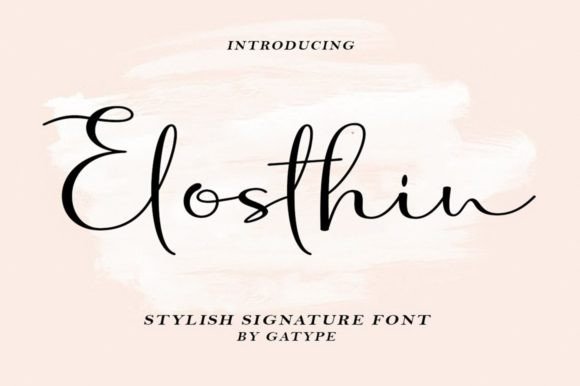
Step into the realm of enchantment with Elosthin, a script typeface that exudes elegance and charm. Its meticulous design ensures legibility and authenticity, making it the perfect choice for any design project that demands a personalized touch.
Indulge in the versatility of Elosthin, a font that complements a diverse range of creative endeavors. Its graceful strokes add a touch of finesse to photography, business cards, wedding invitations, t-shirt designs, logos, magazines, and quotes. Let Elosthin's allure shine through in fashion designs, watermarks, and signatures, leaving a lasting impression on your audience.
With Elosthin, the possibilities are endless. Its PUA encoding grants you effortless access to a treasure trove of glyphs and swashes, empowering you to unleash your creativity and leave an indelible mark on the world. Dive into the world of Elosthin and let your imagination soar.